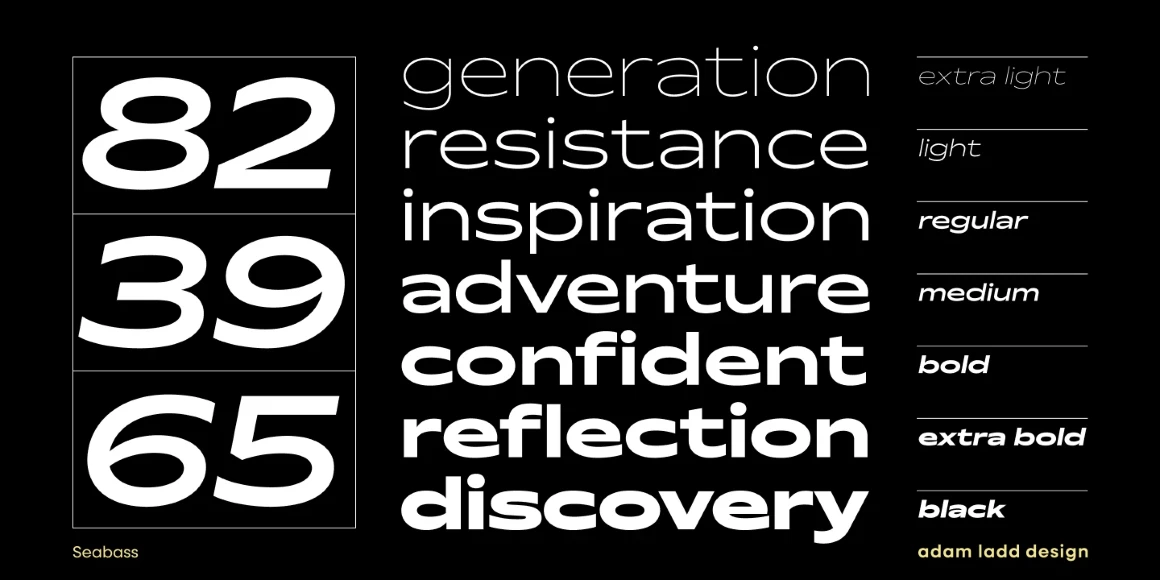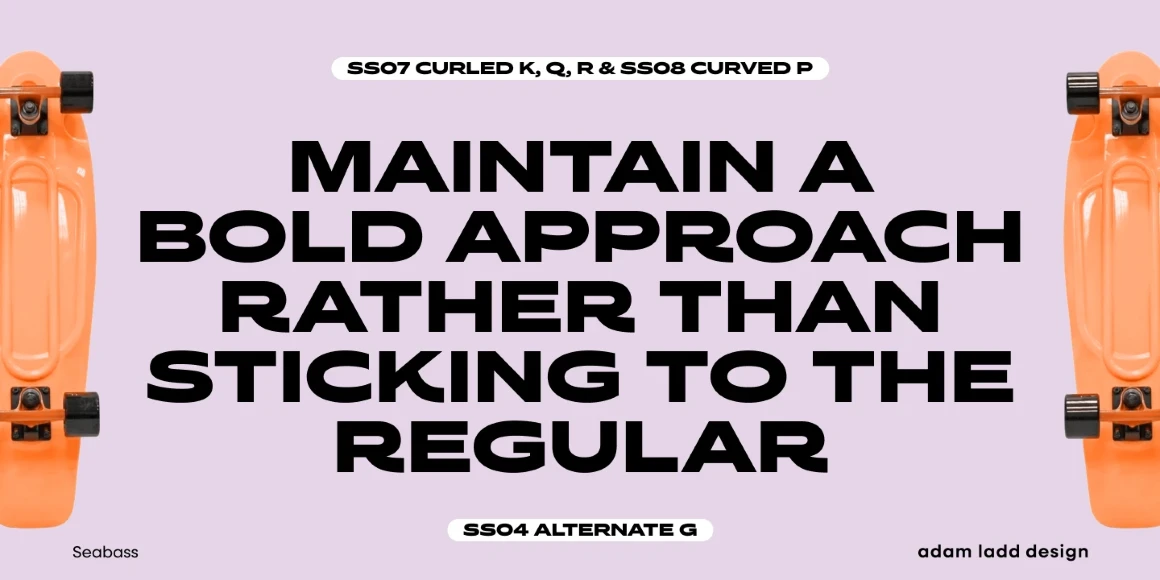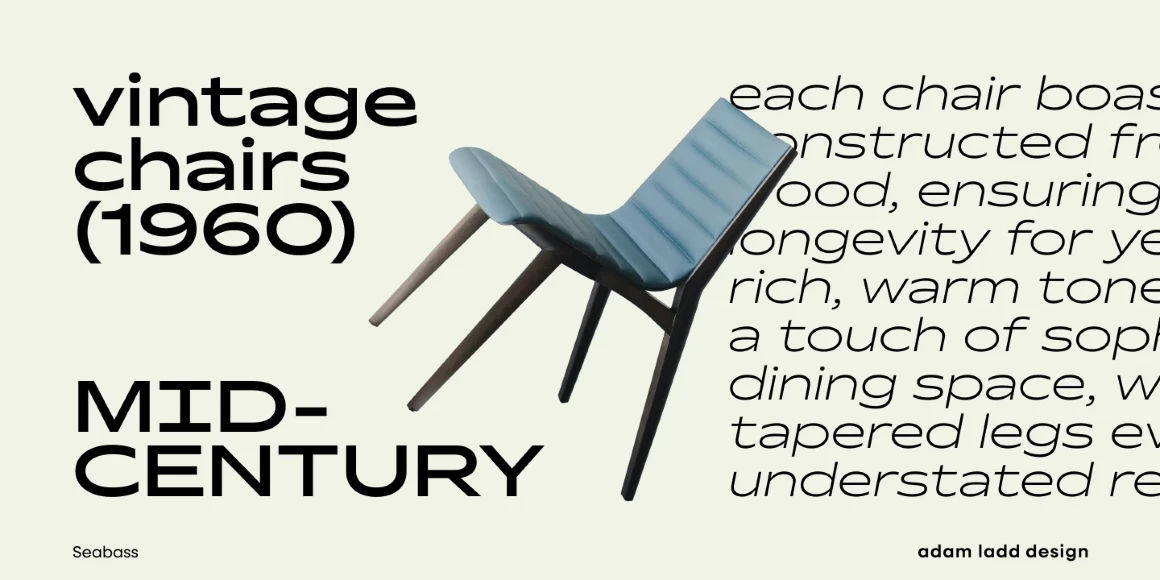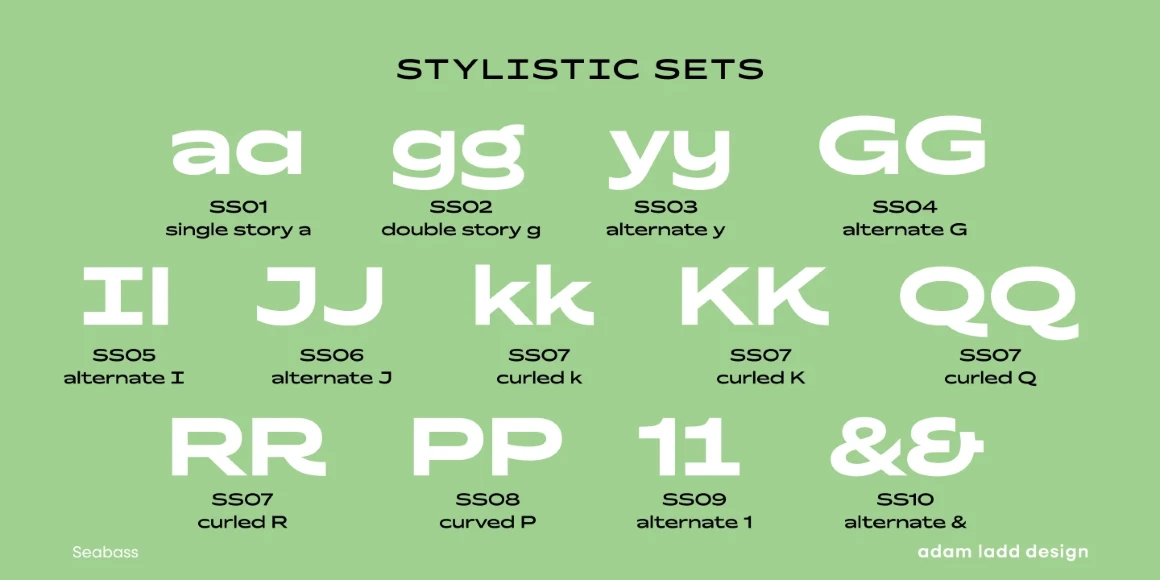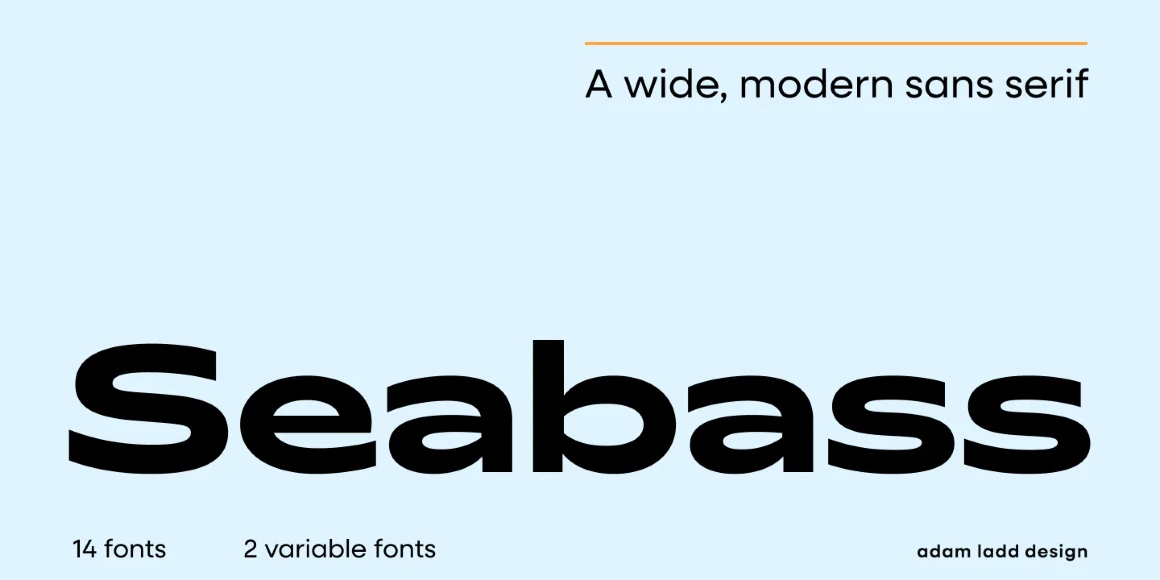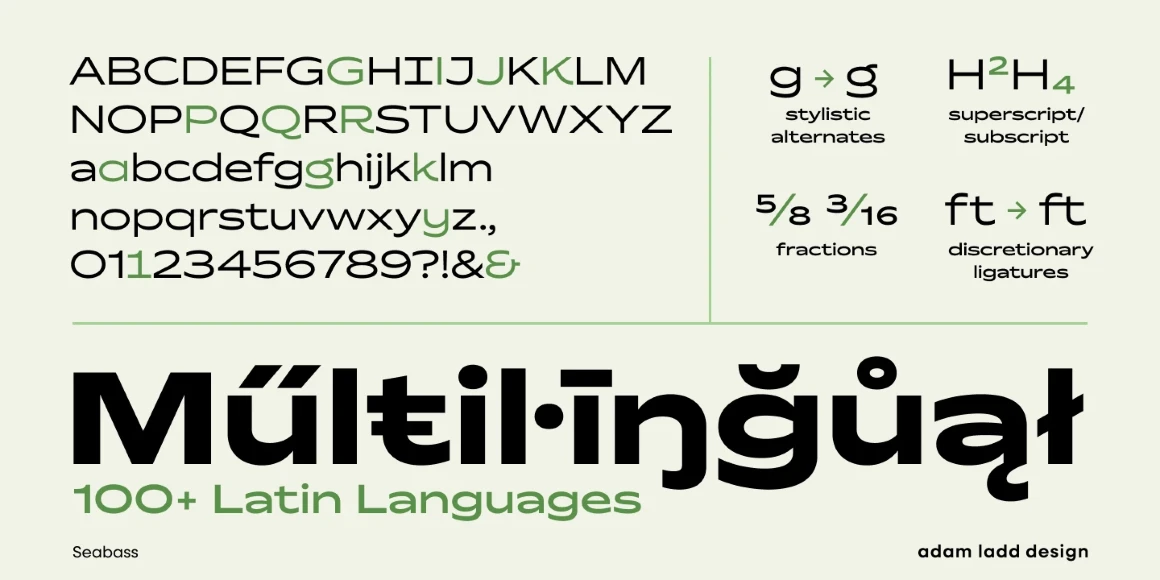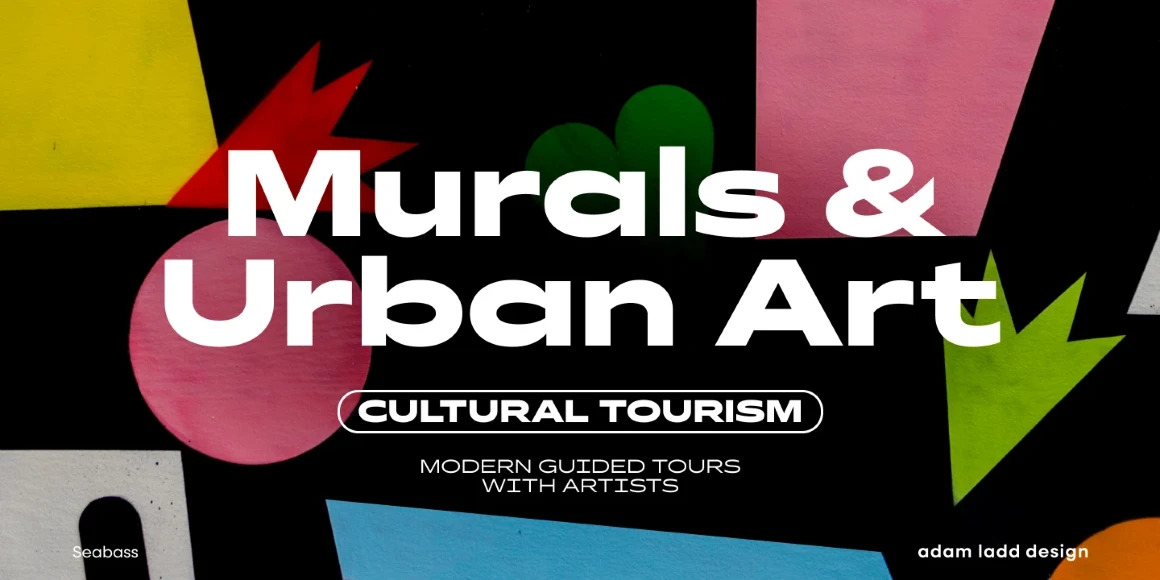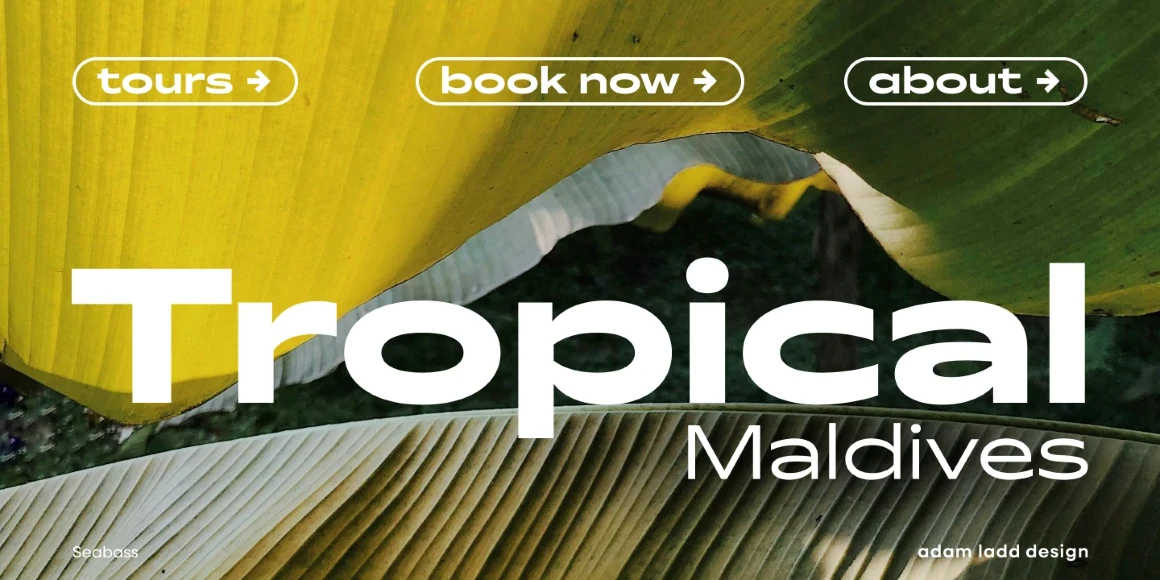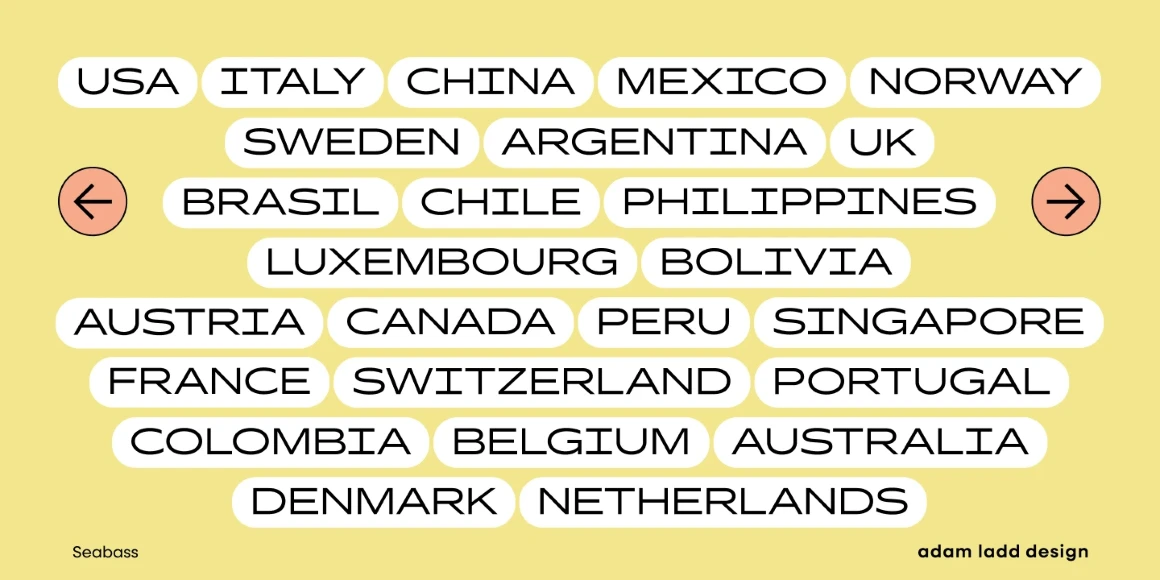
Seabass
By Adam Ladd
Seabass is a wide, modern sans serif with slight reverse contrast. The distinctive design blends eye-catching style with function. Look closely; it’s got California vibes. Think beach culture, skate parks, shopping malls, and boardwalk energy. It’s crafted to create typographic interest and visual texture, especially when set in all caps. This family is ideal for display but still intriguing and useful when small. Available in 14 styles — Extra Light to Black — including italics or 2 variable fonts.